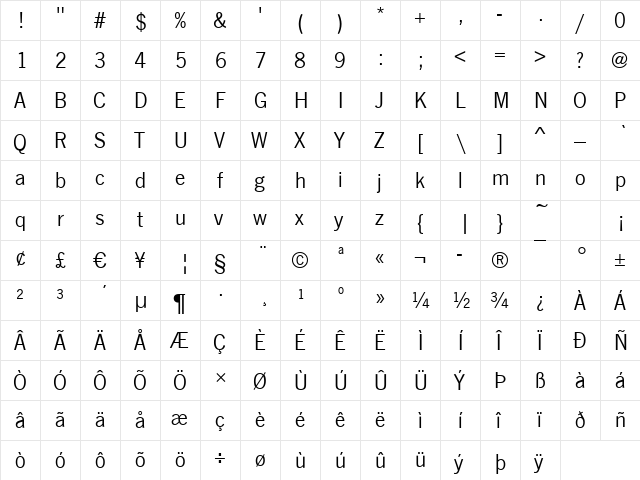
Newcastle Regular
Design Context for Newcastle Typeface
Newcastle takes a measured approach to typography — its balanced proportions and neutral character make it a reliable workhorse for both digital and print work.